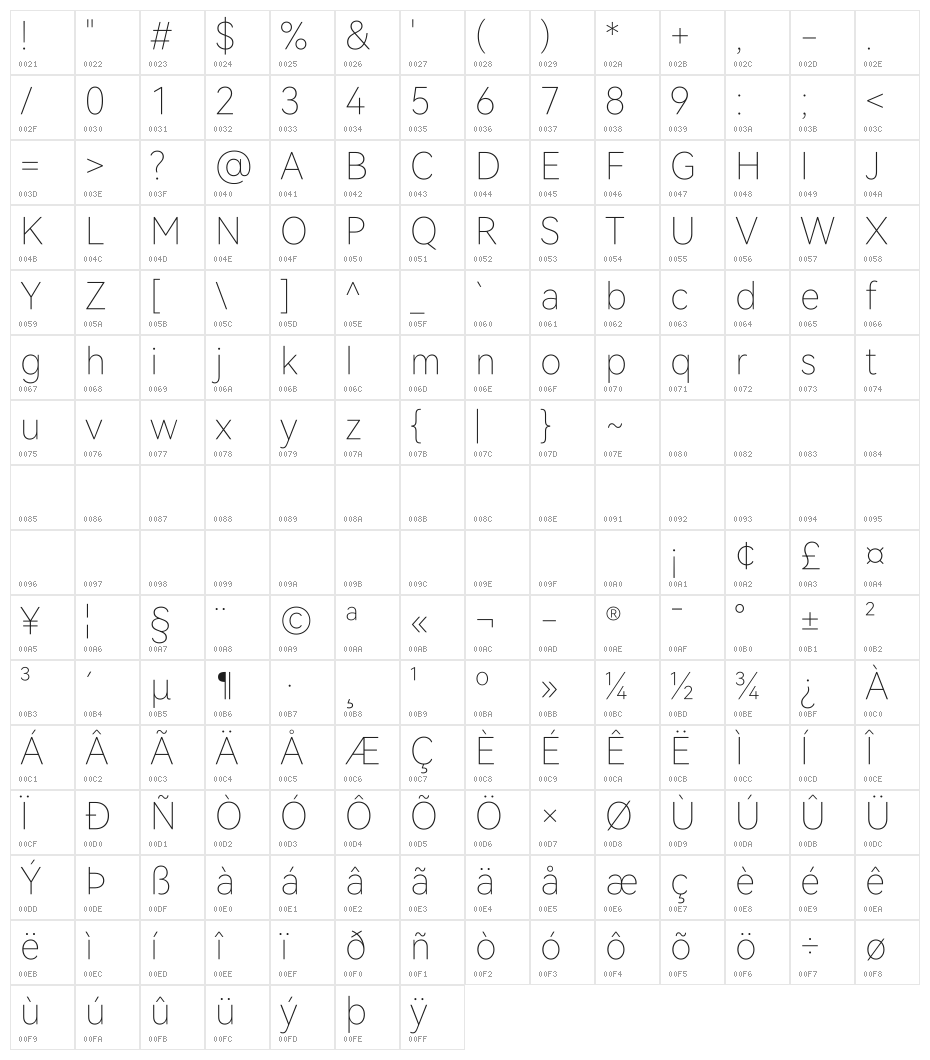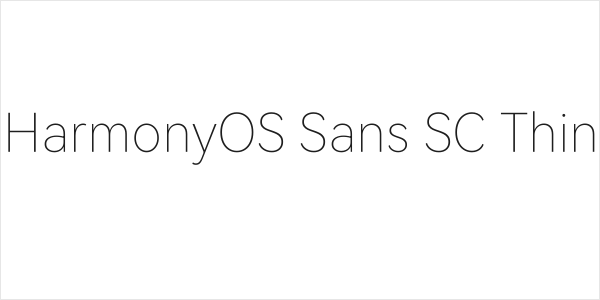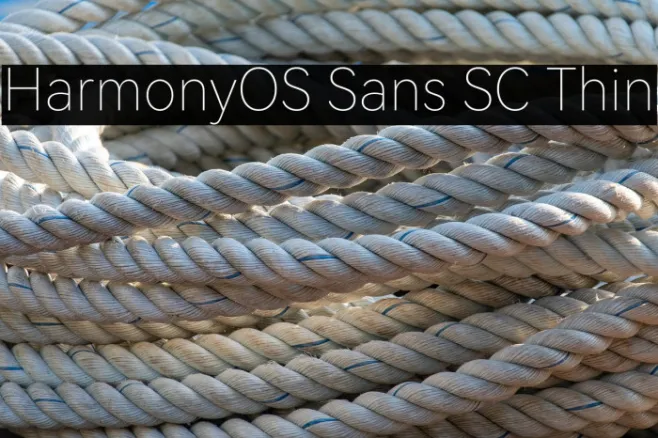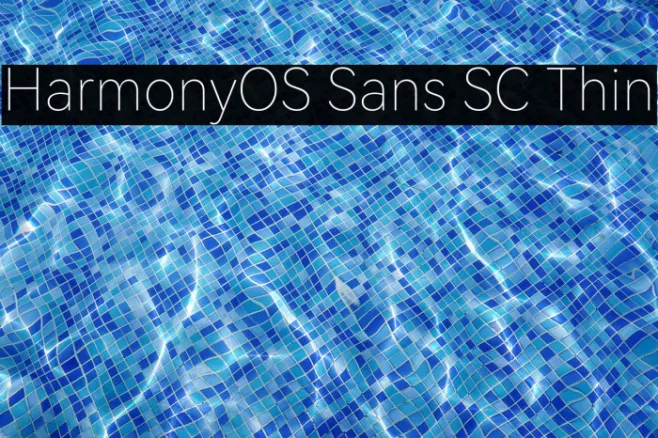
HarmonyOS Sans SC Thin Font
HarmonyOS Sans SC Thin Description
This font features a clean and modern sans-serif style with thin, uniform strokes that give it a sleek and minimalist appearance. The characters are well-proportioned, with a consistent height and width that enhances readability. The uppercase and lowercase letters maintain a harmonious balance, while the numerals and special characters are designed to complement the overall aesthetic. The font's simplicity makes it versatile for various design applications, offering a contemporary look that is both elegant and functional.